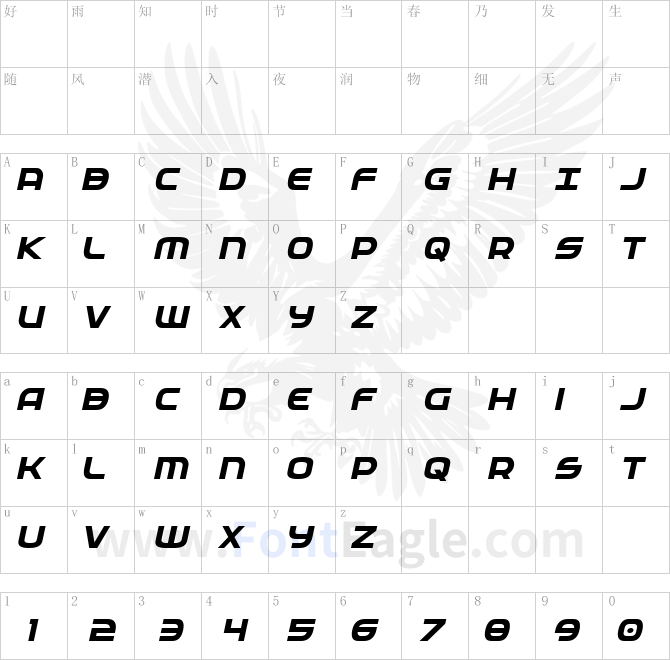
- Font name:Federal Service Bold Italic
- Font Subfamily ID:Federal Service Bold Italic: 2011
- Font Full Name:Federal Service Bold Italic
- Postscript:FederalServiceBoldItalic